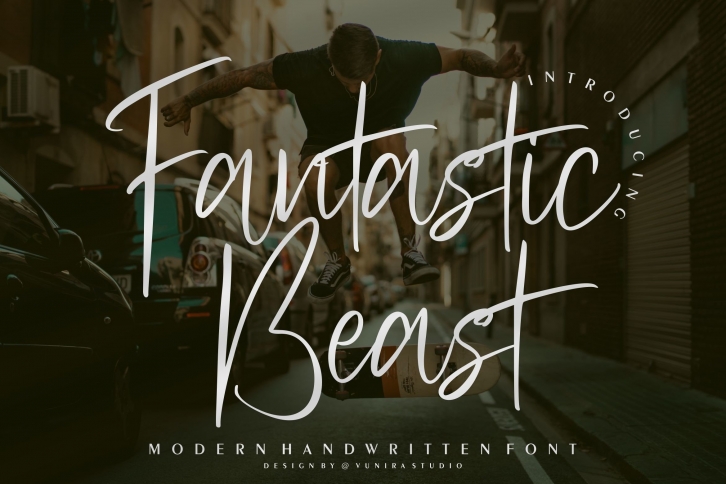
Fantastic Beast is a lovely and delicate script font that exudes elegance and class. This font was particularly crafted for those who need a beautiful and refreshing look to their designs.